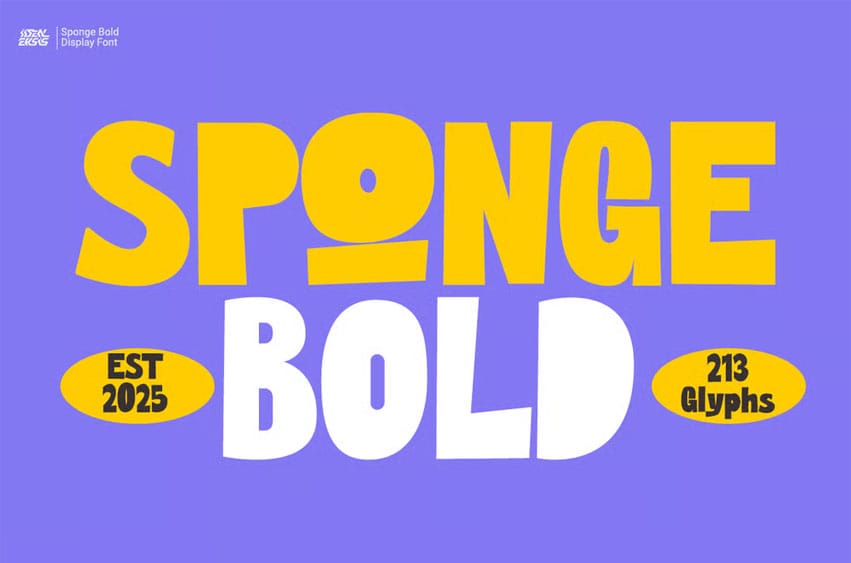
Sponge Bold Font is a playful and chunky display style designed to bring fun, energy, and bold character into your creative projects. With its quirky uneven shapes and expressive baseline, this style is perfect for children’s books, cartoon titles, branding, packaging, and any visual work that needs a cheerful and lively personality.
Carefully crafted with smooth curves and strong visual impact, SPONGE BOLD stands out effortlessly in both digital and print designs.